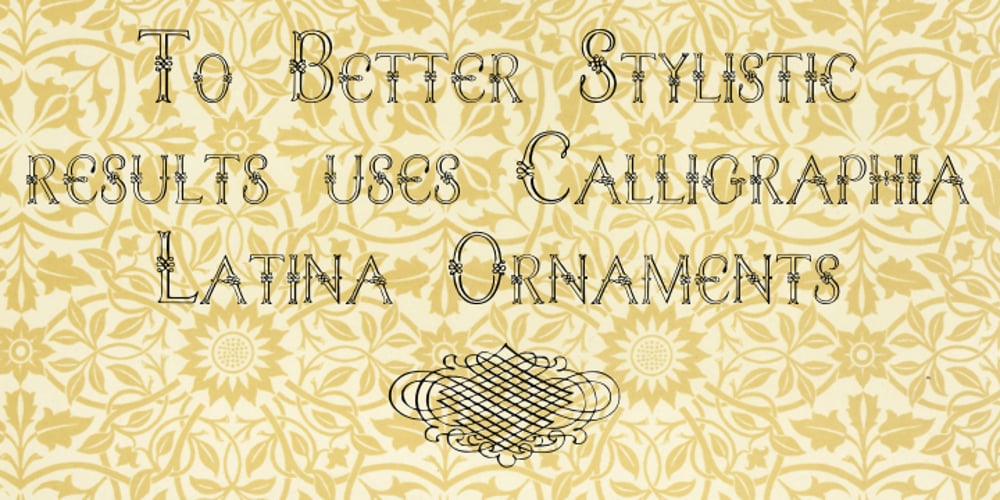
Jaggard
Jaggard font
Jaggard Font Family was designed by Paulo W, Joachim Romann and published by Intellecta Design. Jaggard contains 1 styles and family package options. Jaggard is a classical renaissance penmanship inspired font which works great when used for display reasons only. Contains only uppercase alphabet designs.